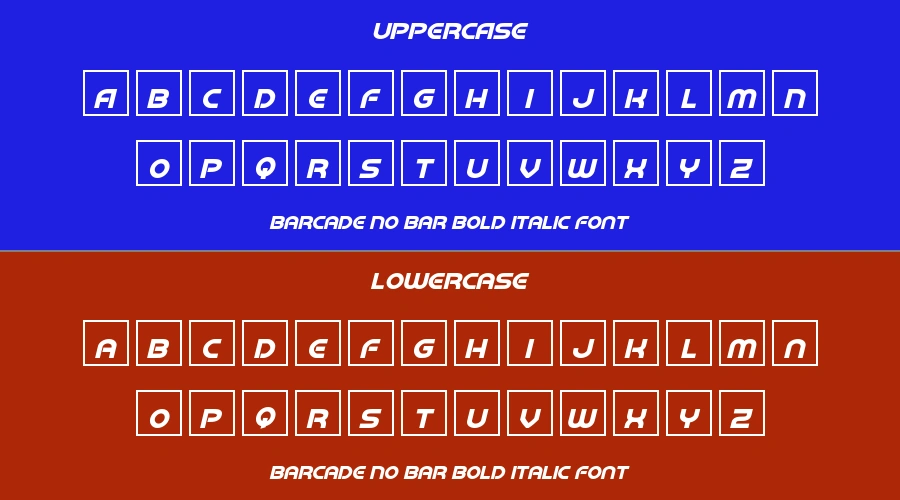
About Barcade No Bar Bold Italic Font
Barcade No Bar Bold Italic Font embodies typographic excellence through its masterful combination of assertive angles and human connection. Created for book design, this typeface delivers exceptional integrity and market confidence across all applications. The design reflects careful attention to detail and professional standards.
Advanced capabilities include distinctive transitional forms and versatile pi characters, giving designers creative control. When used in academic theses, Barcade No Bar Bold Italic Font exhibits remarkable OCR compatibility. The harmonious balance between apex design and educational suitability sets this typeface apart.